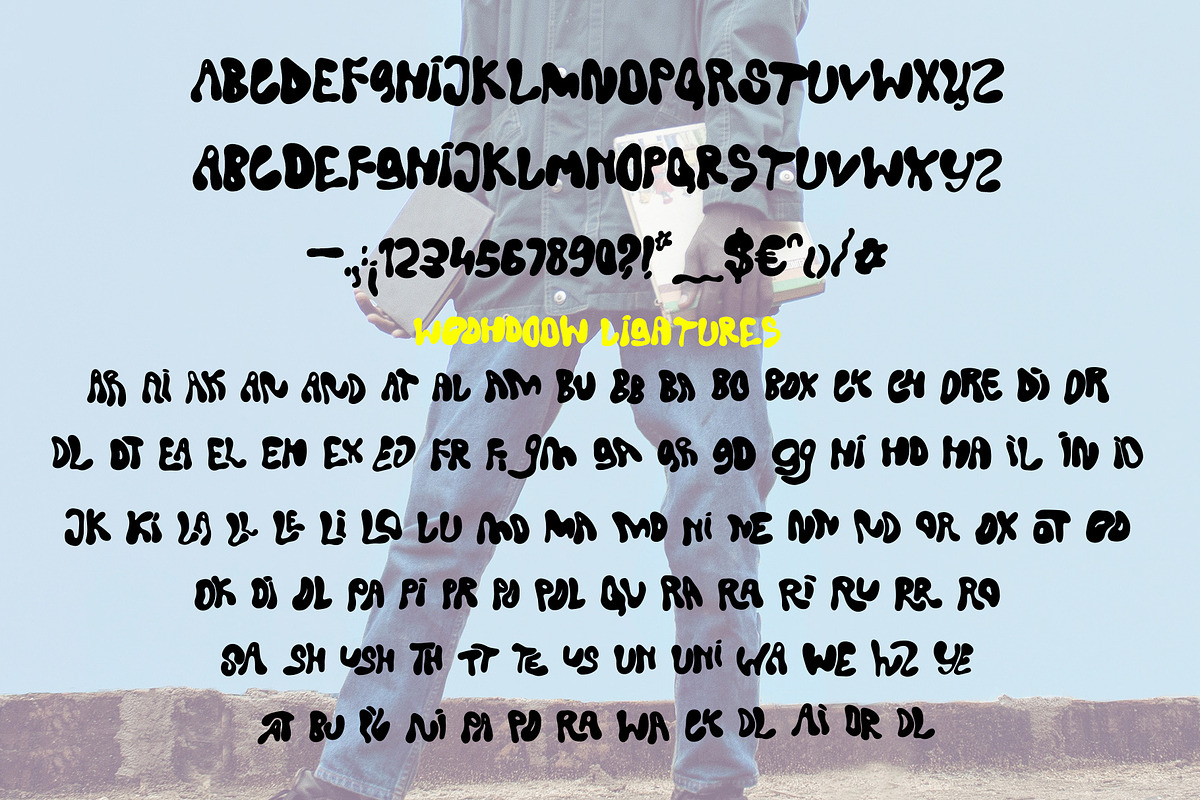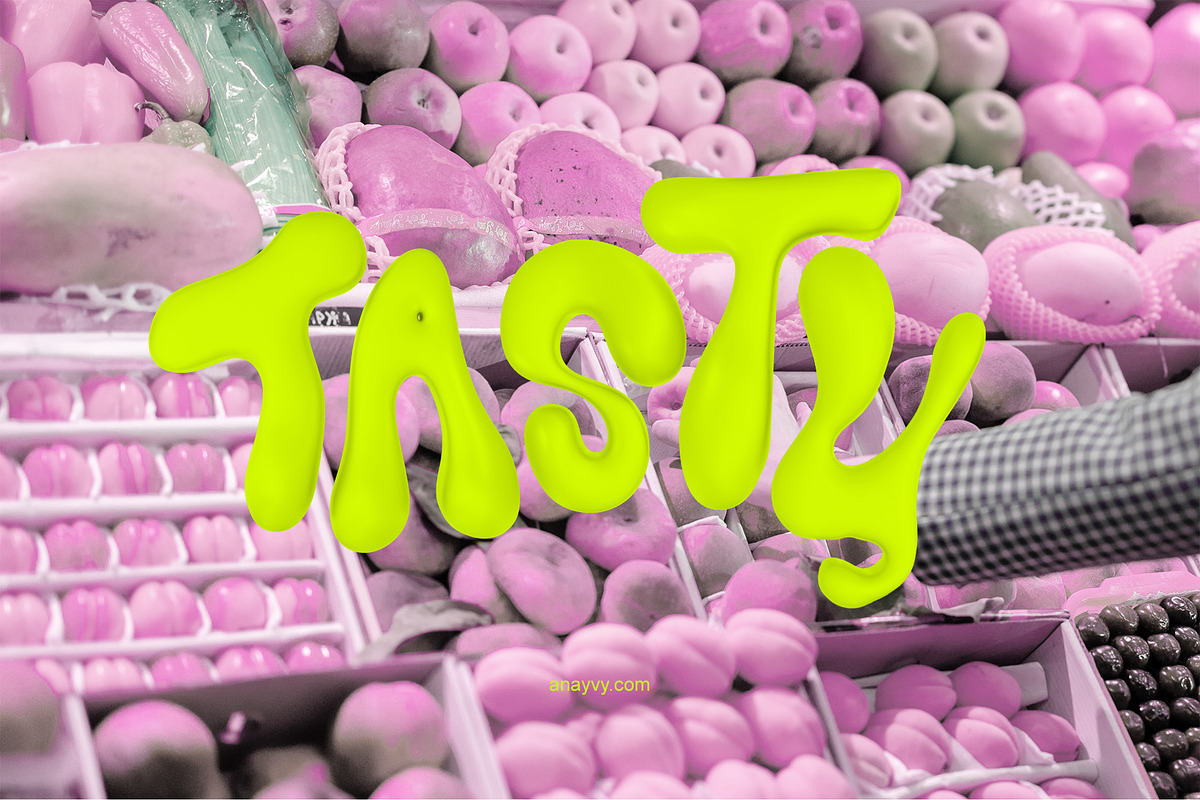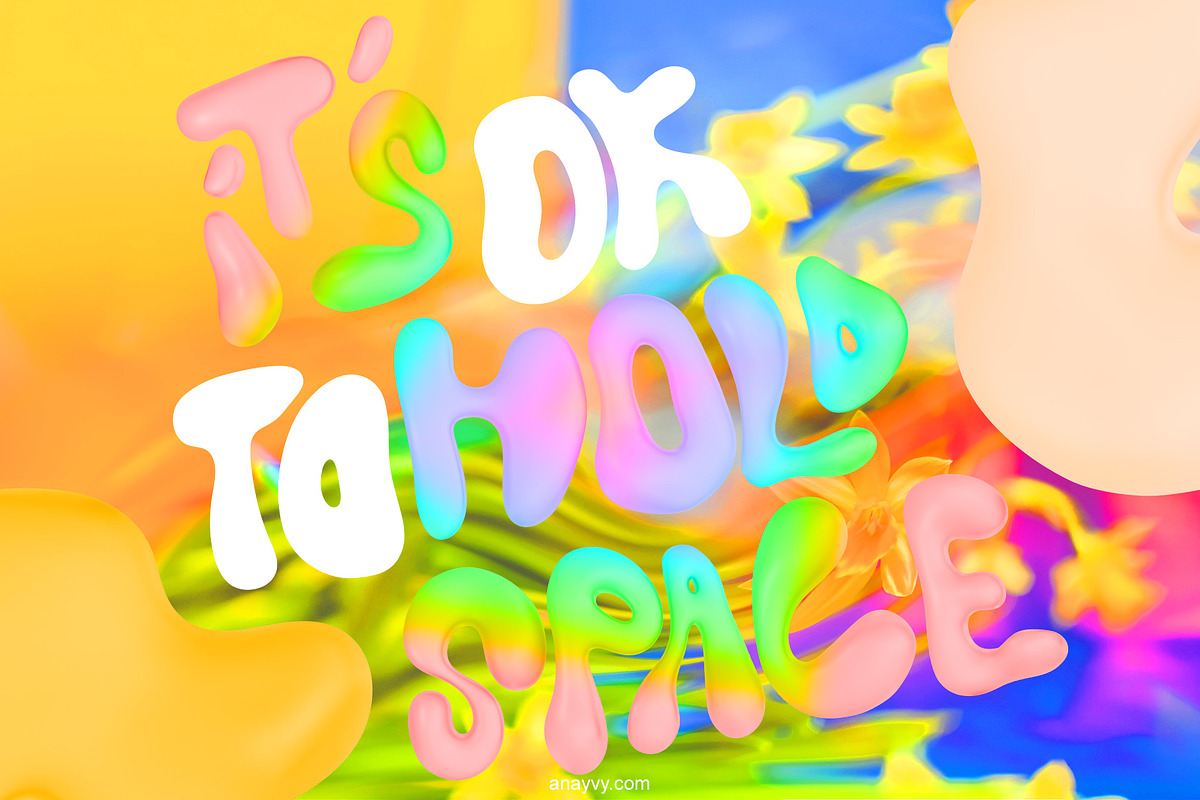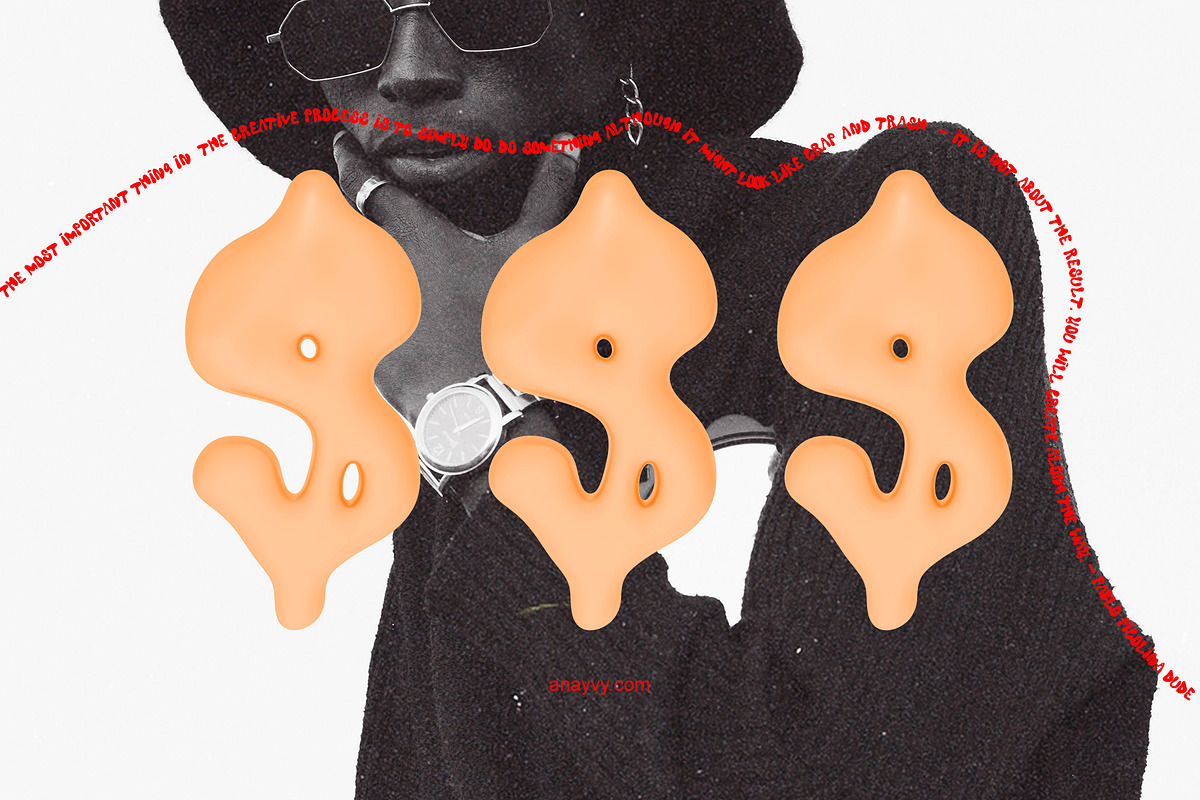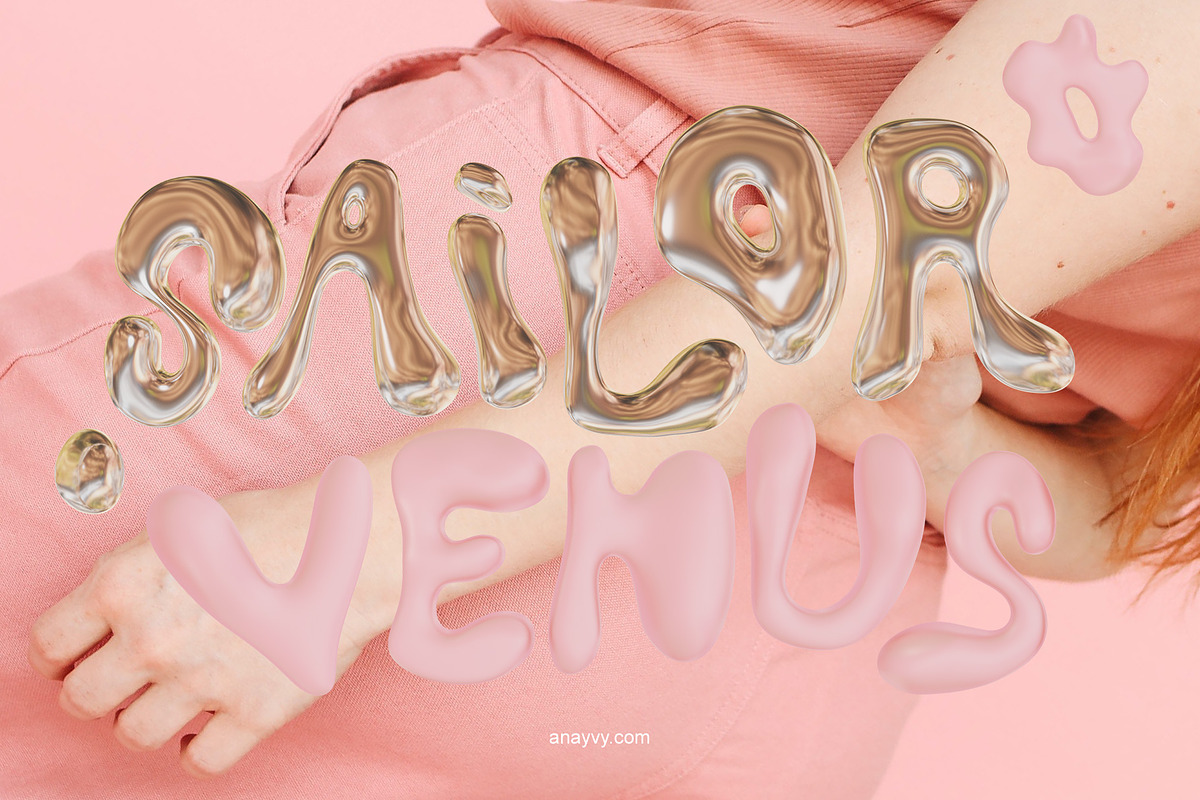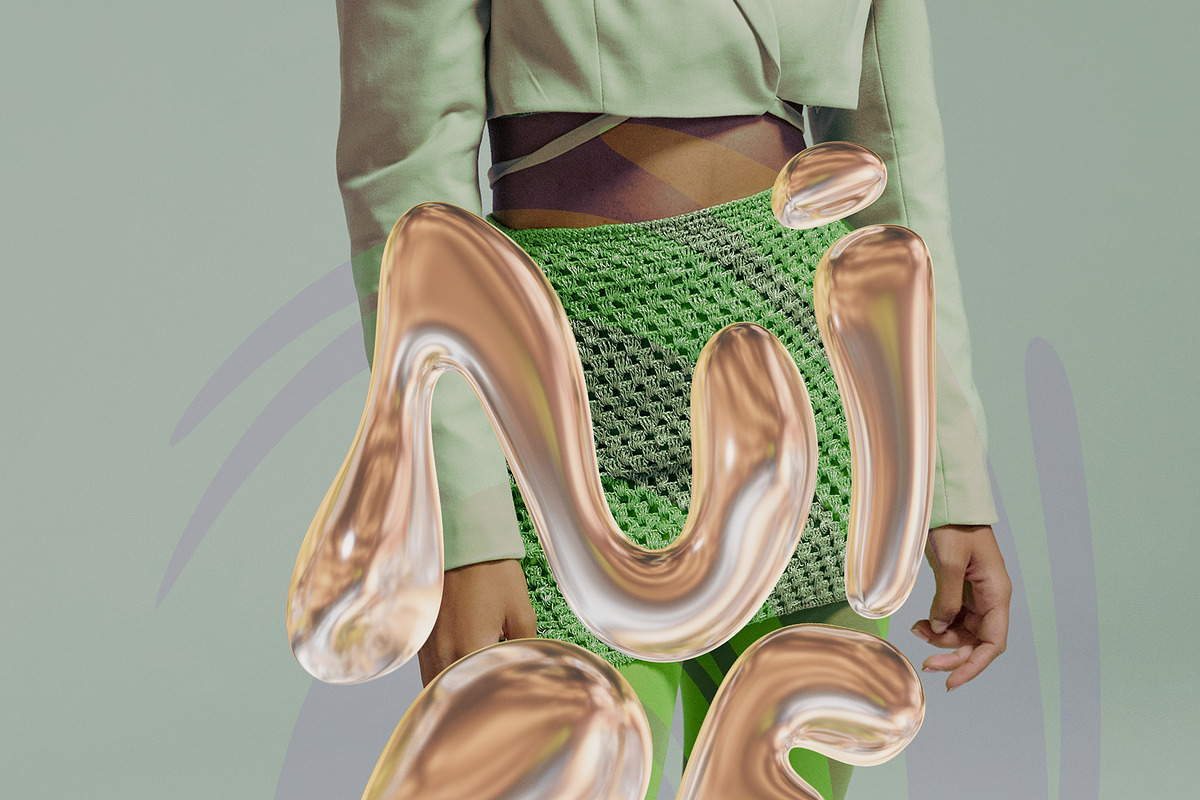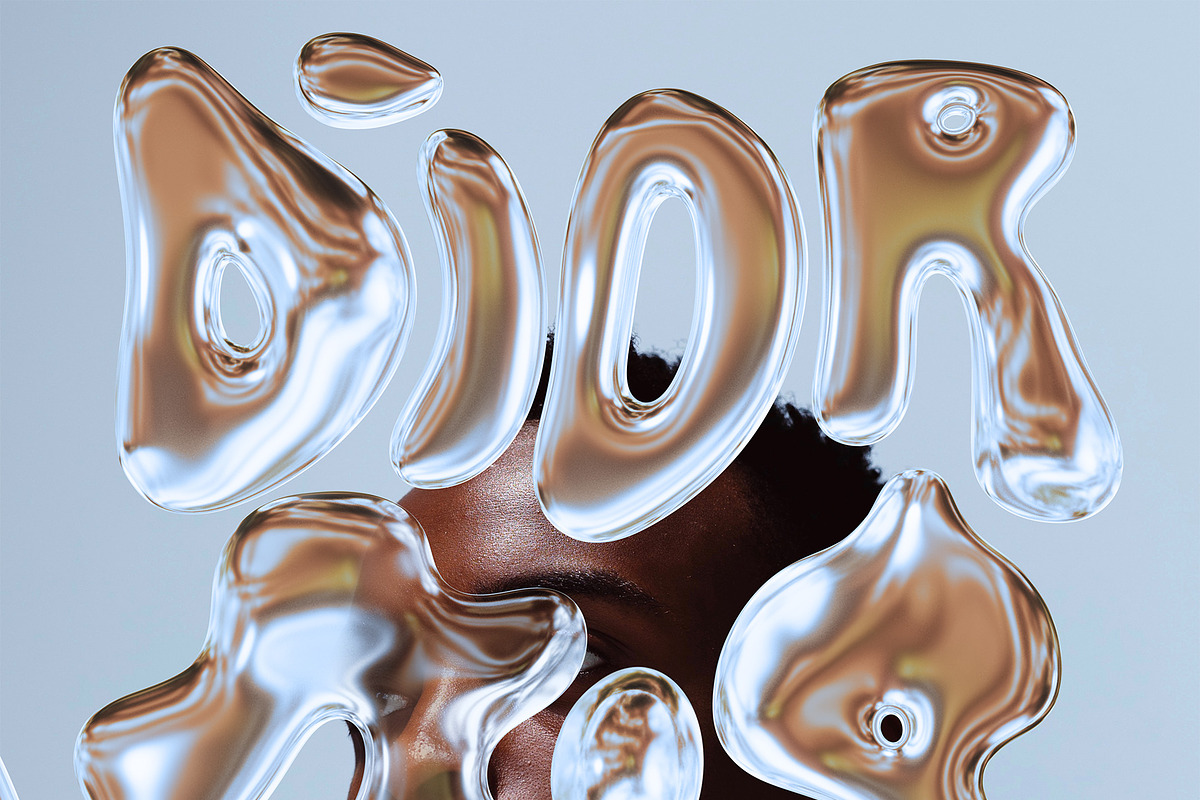
Please enjoy this wobbly bubble 3D font. Realistic bubble or gold metallic chrome letters & ligatures make every poster or layout looking the bomb. 100%.
- wabble shapes